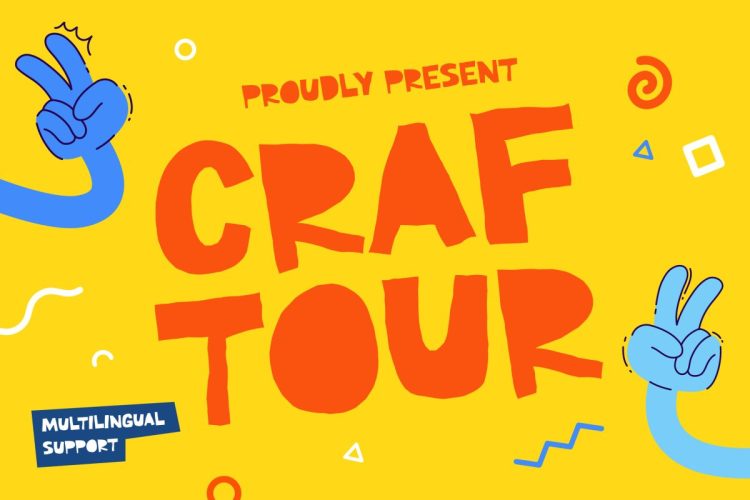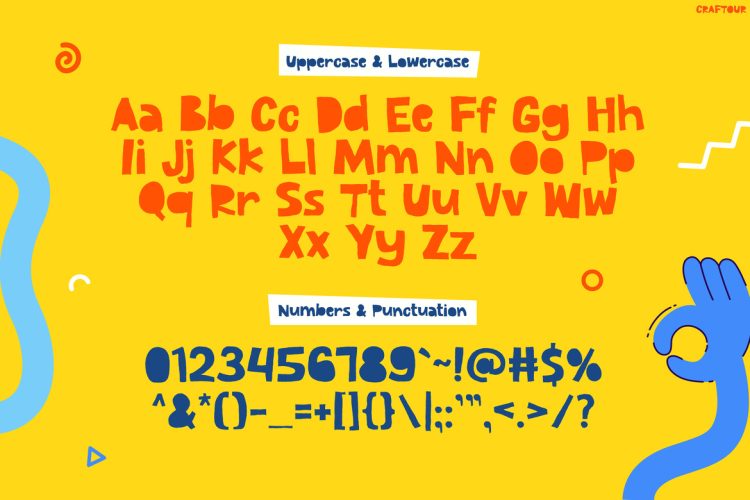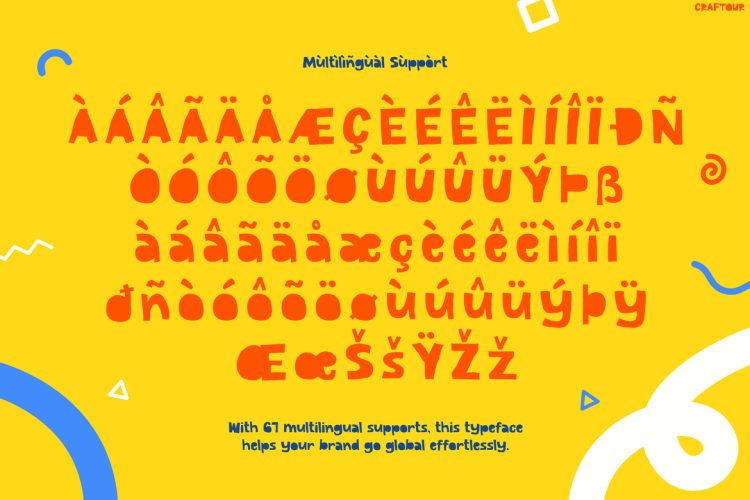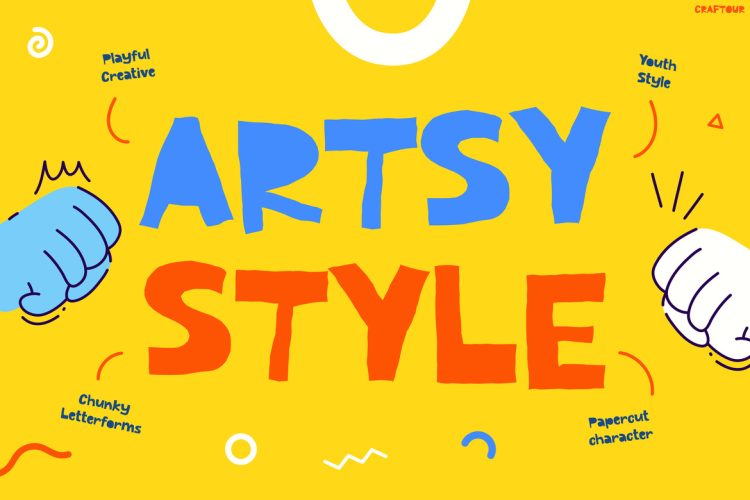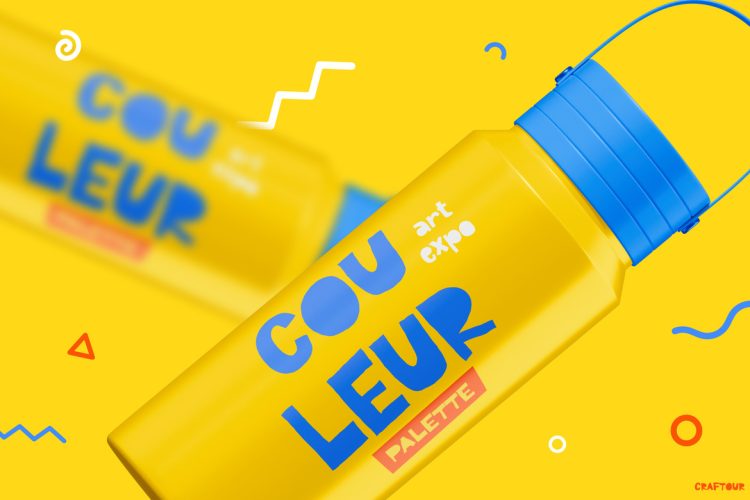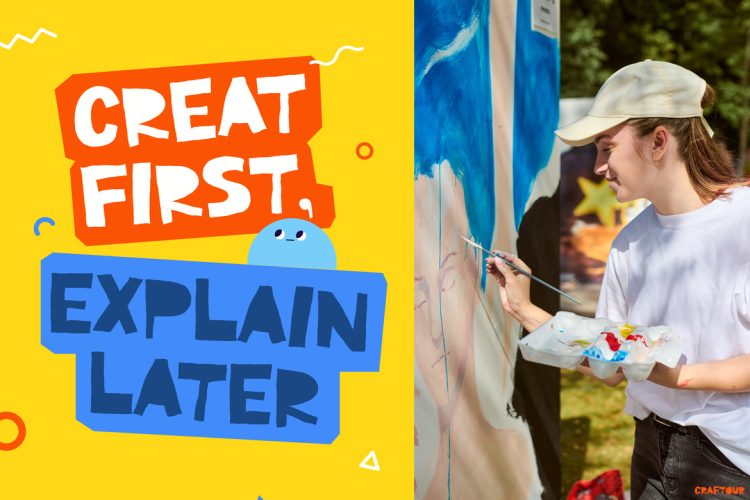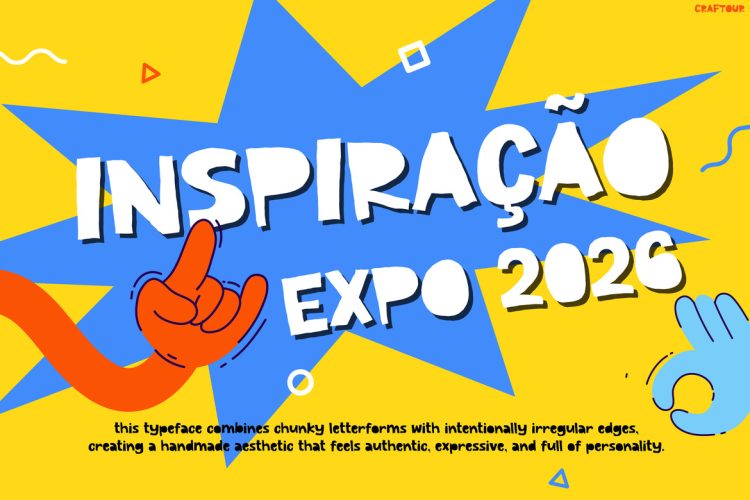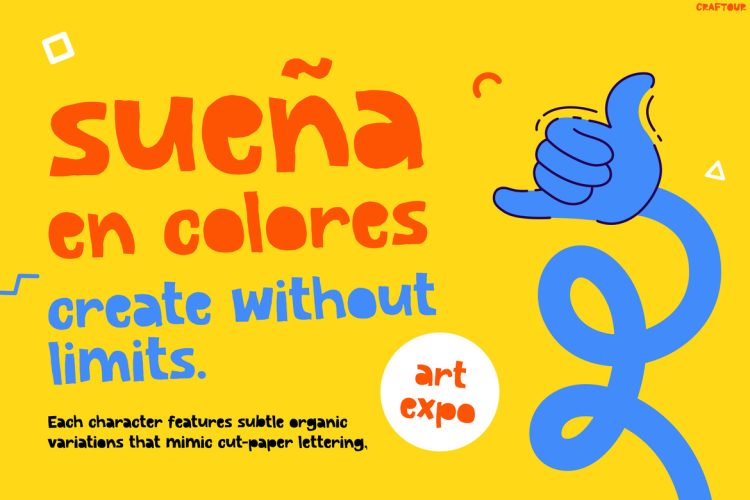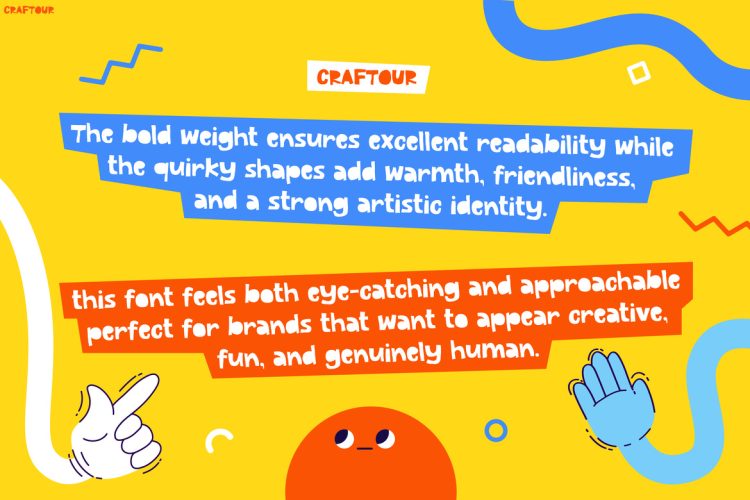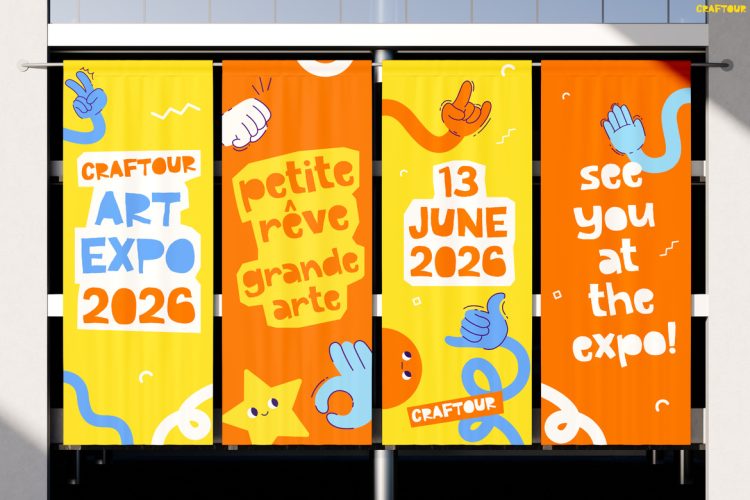
Kids Font Craftour โ Bright, Happy & Full of Artistic Energy
Kids Font Craftour is a cheerful display font created to bring imagination, creativity, and joyful expression into every design. Not only does it feature bold rounded letterforms, but it also combines playful shapes and handcrafted imperfections that create a lively and approachable personality. Moreover, its colorful and energetic aesthetic makes every word feel fun and full of movement. In addition, the chunky structure provides excellent readability while maintaining a cute and artistic appearance. Furthermore, Craftour transforms ordinary layouts into eye-catching visual experiences. As a result, posters, packaging, branding, and social media designs instantly become more engaging and memorable. Additionally, with support for 67 languages, Craftour allows creators to spread creativity and happiness across global audiences.
Kids Font Craftour Perfect For
Craftour is designed for projects that celebrate art, fun, and unlimited creativity. Whether you are creating kidsโ products, art exhibitions, creative workshops, educational materials, toy packaging, school campaigns, event posters, or playful branding, this font brings a fresh and expressive spirit. Likewise, its handmade character gives every headline a warm and friendly feeling. Meanwhile, the bold and colorful style helps messages stand out in both digital and printed media. Consequently, your designs become more attractive, energetic, and easier to remember.
Who Can Use It?
- Childrenโs Brands & Toy Companies
- Art Workshop Organizers
- Schools & Educational Projects
- Creative Event Planners
- Packaging Designers
- Social Media Creators
- Graphic Designers & Illustrators
- Branding & Creative Agencies
Color Your Ideas with Craftour
If you want your designs to feel brighter, happier, and packed with creativity, Kids Font Craftour is the perfect choice. Therefore, add this playful font to your creative collection today. Not only will it make your designs more fun and expressive, but it will also help your brand build a stronger emotional connection with audiences. Ultimately, Craftour turns simple ideas into colorful stories filled with imagination, positivity, and artistic charm.